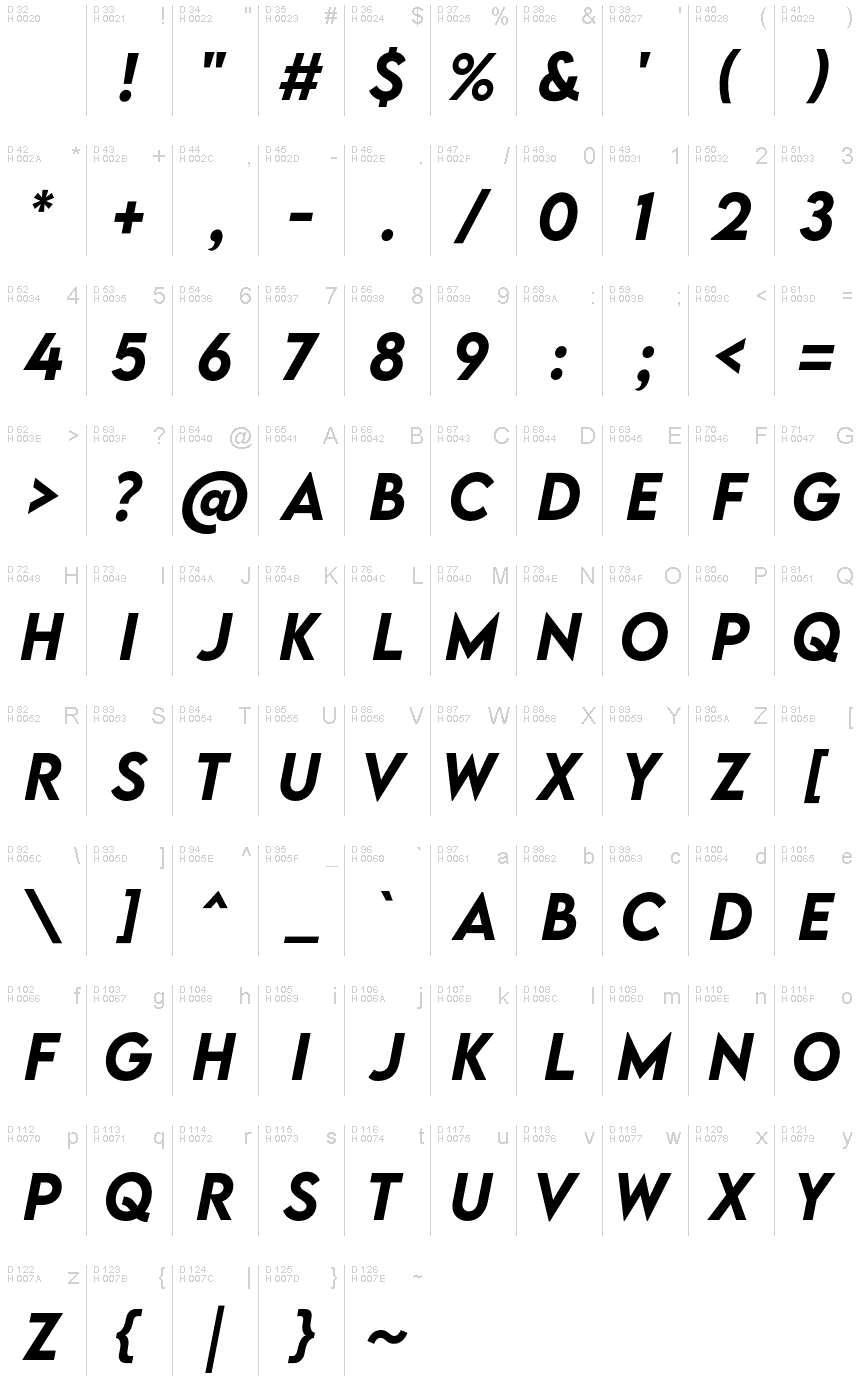
LEMON MILK Medium Italic
Need lowercases of LEMON MILK?
Get LEMON MILK with lowercases, covering extended Latin, Cyrillic, and Greek.
Moreover, it now has 18 fonts + 2 variable fonts ranging from thin to heavy.
In 2014, the widely known Lemon/Milk was intentionally made as a visual identity for a zine with the same name published by students of English Study Program, University of Indonesia.
Continiously developed, in this pro version, Lemon/Milk finally has lowercases, as well as oldstyle figure, case sensitive form etc. It also covers Latin, Cyrillic, and Greek.